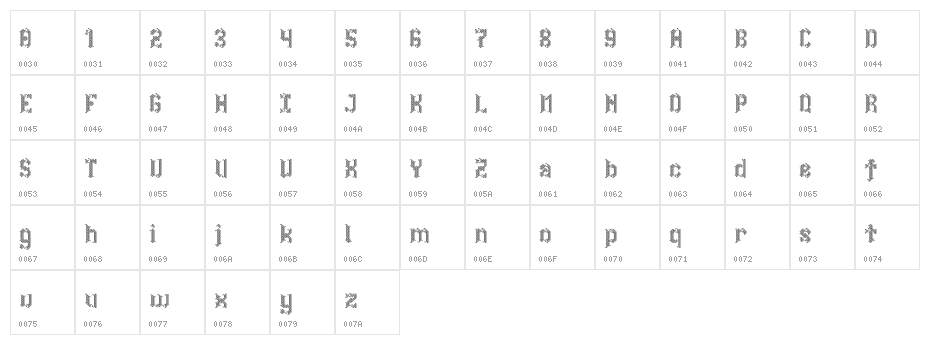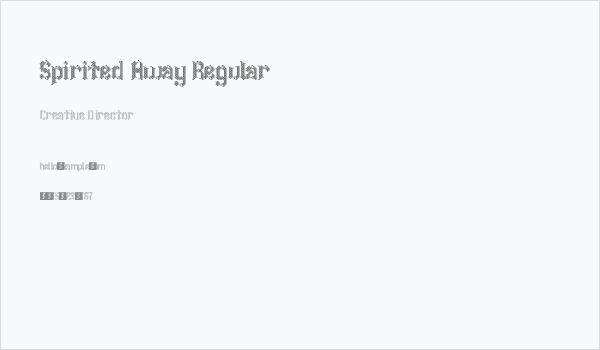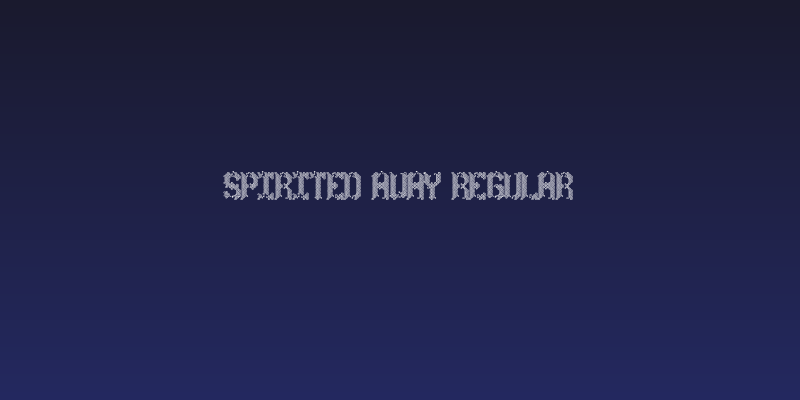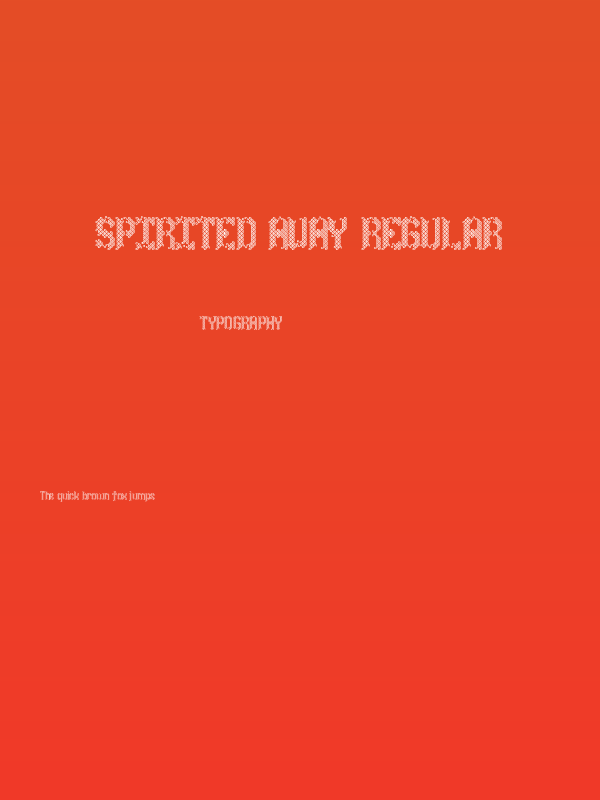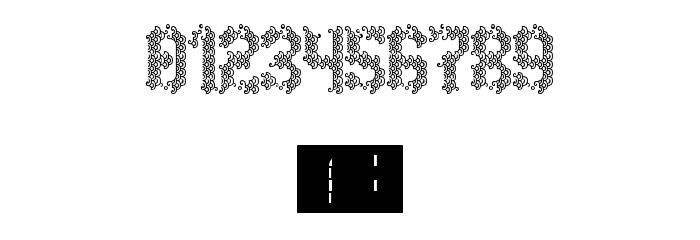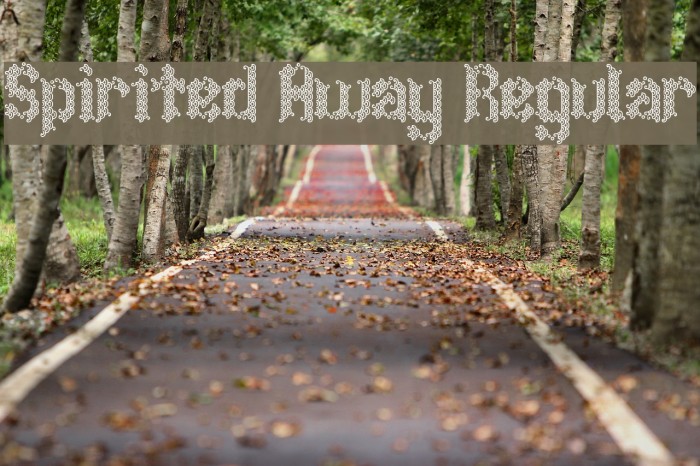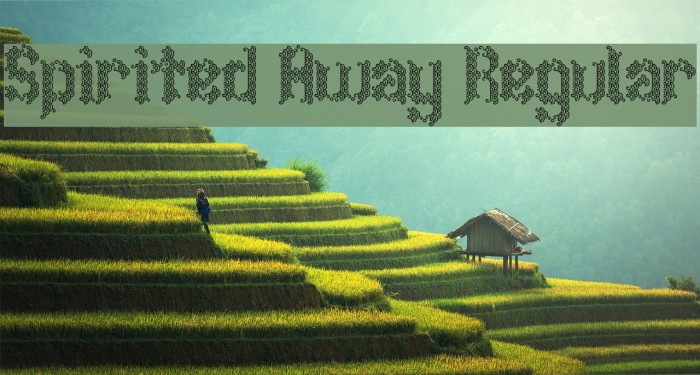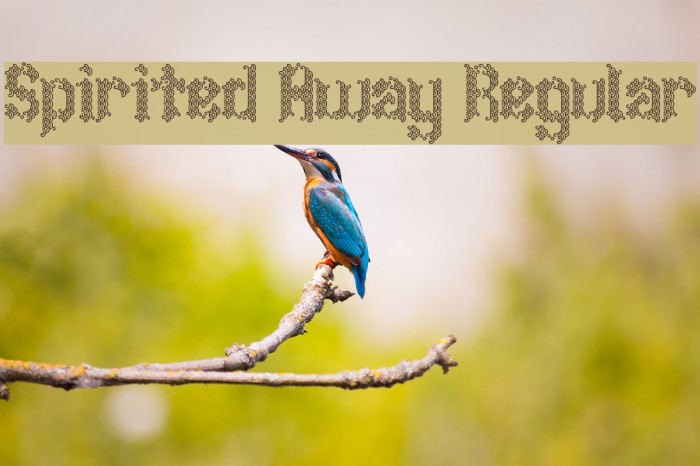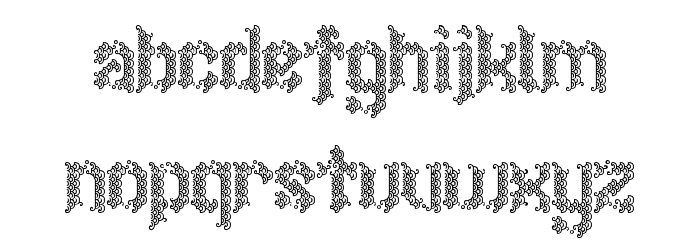
Spirited Away Regular Font
| Caso d'uso | Logos, Posters, Artistic projects |
| Progetti proposti | Ideal for artistic projects, invitations, posters, and branding that require a whimsical and decorative touch. |